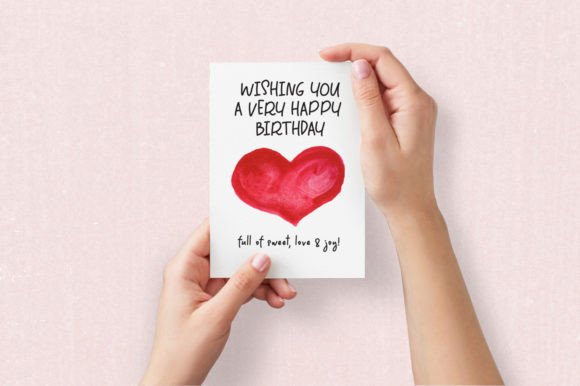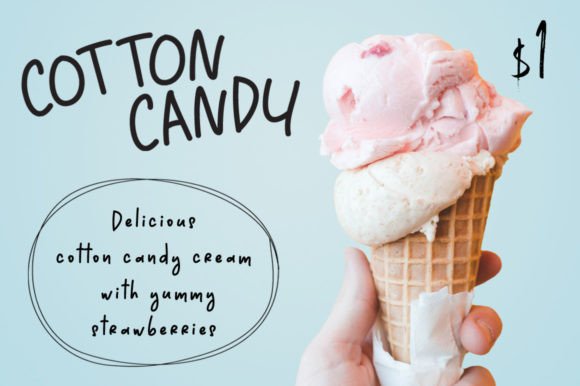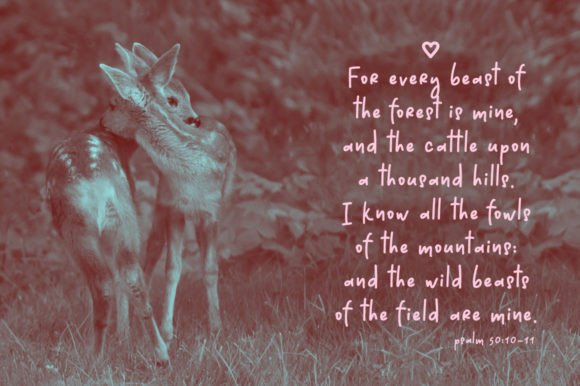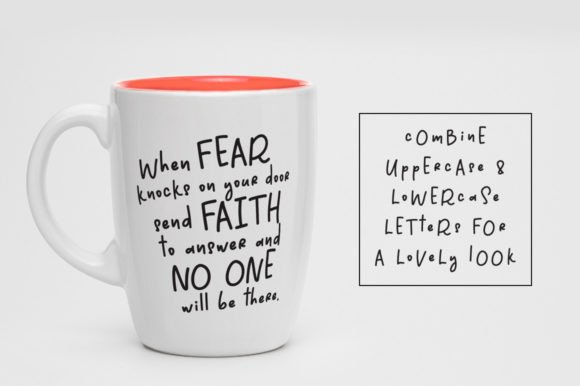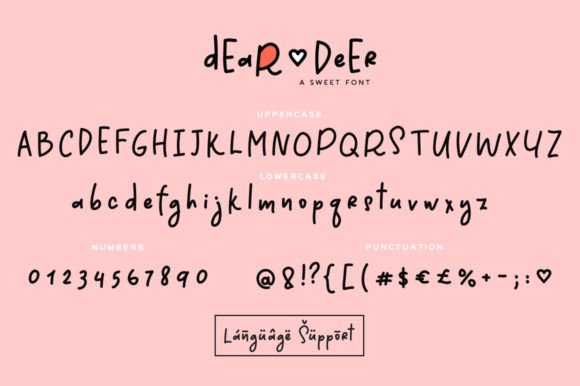
Introducing Dear Deer Font: A Whimsical Handwritten Font for Creative Projects
Are you a designer, crafter, or DIY enthusiast looking for a unique and playful font to add a personal touch to your projects? Look no further than Dear Deer Font, a charming handwritten font with a whimsical style that’s perfect for a wide range of creative applications.
What is Dear Deer Font?
Dear Deer Font is a carefully crafted handwritten font that combines uppercase and lowercase letters, numbers, and punctuation to create a comprehensive and versatile typeface. Its whimsical style is sure to add a touch of personality to any design project, from social media posts and greeting cards to t-shirts, mugs, stickers, and more.
Key Features of Dear Deer Font
- Comprehensive character set: Includes all uppercase and lowercase characters, numbers, and punctuation, ensuring that you have everything you need to create a wide range of designs.
- Whimsical style: A playful and charming font that’s perfect for adding a personal touch to your projects.
- Handwritten feel: A unique and authentic handwritten font that adds a touch of warmth and personality to your designs.
- Language support: Supports a wide range of languages, making it a great choice for designers and crafters who work with international clients or want to create designs for a global audience.
Uses for Dear Deer Font
Dear Deer Font is a versatile typeface that can be used for a wide range of creative projects, including:
- Social media posts: Add a personal touch to your social media posts and make them stand out with Dear Deer Font.
- Greeting cards: Create unique and charming greeting cards for special occasions like birthdays, weddings, and holidays.
- T-shirts and apparel: Add a playful touch to your t-shirts, hoodies, and other apparel with Dear Deer Font.
- Mugs and ceramics: Create fun and functional mugs, tumblers, and other ceramics with Dear Deer Font.
- Stickers and labels: Use Dear Deer Font to create cute and colorful stickers and labels for your products or projects.
- Quotes and posters: Create inspiring quotes and posters with Dear Deer Font to add a touch of personality to your walls.
- Totes and bags: Add a playful touch to your tote bags, shopping bags, and other fabric projects with Dear Deer Font.
Why Choose Dear Deer Font?
Dear Deer Font is a great choice for designers and crafters who want to add a personal touch to their projects. Here are just a few reasons why:
- Unique and playful: Dear Deer Font is a one-of-a-kind font that’s sure to make your projects stand out.
- High-quality: Dear Deer Font is a high-quality font that’s designed to look great in a wide range of sizes and resolutions.
- Support: Dear Deer Font comes with language support, making it a great choice for designers and crafters who work with international clients.
Dear Deer Font is a charming handwritten font with a whimsical style that’s perfect for designers, crafters, and DIY enthusiasts. With its comprehensive character set, playful style, and language support, Dear Deer Font is a versatile typeface that can be used for a wide range of creative projects. Whether you’re creating social media posts, greeting cards, t-shirts, or mugs, Dear Deer Font is a great choice for adding a personal touch to your designs.